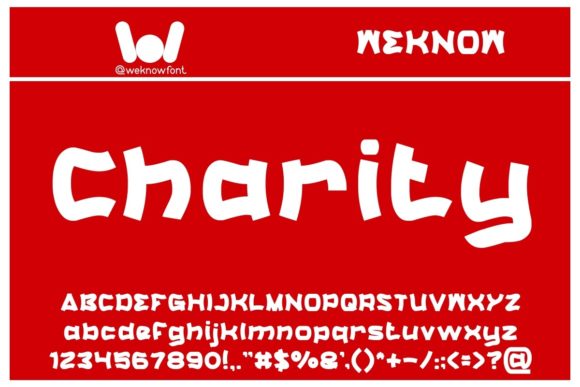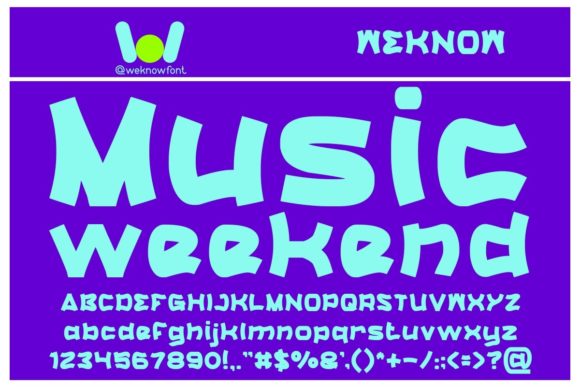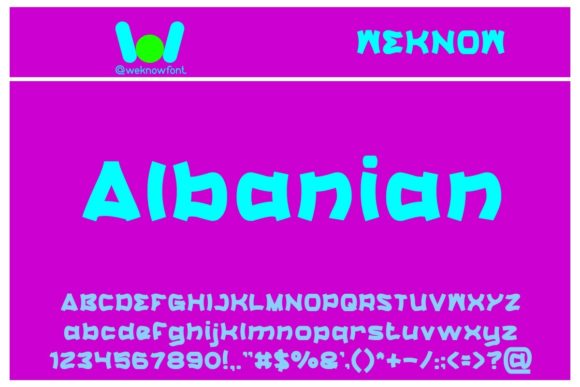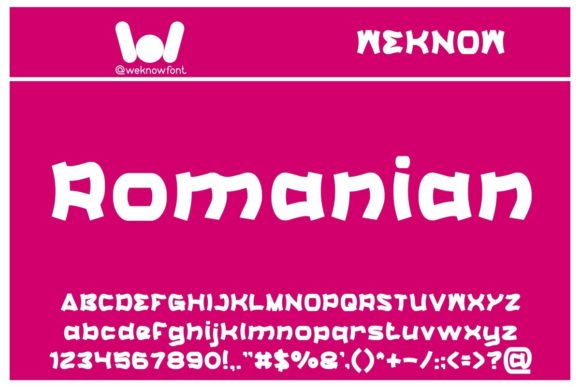
Catalyst Font: The Ultimate Choice for Creative Designs
Are you looking for a font that can add a playful and lovely touch to your designs? Look no further than the Catalyst Font! This cool, chunky lettered, and wavy display font is perfect for cartoon-related designs, children’s games, and any creation that requires a fun and creative vibe.
What is Catalyst Font?
Catalyst Font is a unique and eye-catching font that features chunky, wavy letters that are sure to grab attention. Its playful and carefree design makes it an excellent choice for designers who want to add a touch of whimsy to their work. Whether you’re creating a logo, a poster, or a digital graphic, Catalyst Font is sure to make your design stand out.
Key Features of Catalyst Font
• Chunky and Wavy Letters: The Catalyst Font features thick, chunky letters with a wavy design that gives it a playful and fun feel.
• Perfect for Cartoon-Related Designs: The font’s cartoonish vibe makes it an excellent choice for designers who create content for children’s shows, games, or comics.
• Great for Children’s Games: The font’s playful design makes it perfect for creating fun and engaging games for kids.
• Lovely Touch: The Catalyst Font adds a lovely touch to any design, making it perfect for creating visually appealing graphics.
Why Choose Catalyst Font?
There are many reasons why designers and crafters choose Catalyst Font for their creative projects. Here are a few:
• Unique Design: The Catalyst Font has a unique design that sets it apart from other fonts. Its chunky, wavy letters are sure to grab attention and make your design stand out.
• Versatile: The font is versatile and can be used for a wide range of design projects, from logos and posters to digital graphics and children’s games.
• Easy to Read: Despite its chunky design, the Catalyst Font is easy to read, making it perfect for creating graphics that need to communicate a message.
• Fun and Playful: The font’s playful design makes it perfect for creating fun and engaging graphics that appeal to kids and adults alike.
How to Use Catalyst Font
Using the Catalyst Font is easy! Here are a few tips to get you started:
• Pair it with Other Fonts: The Catalyst Font pairs well with other fonts, so feel free to experiment with different combinations to create a unique look.
• Use it for Headings: The font’s chunky design makes it perfect for headings and titles. Use it to create eye-catching headlines that grab attention.
• Add a Pop of Color: The Catalyst Font looks great with bright, bold colors. Add a pop of color to your design to make it stand out.
In conclusion, the Catalyst Font is an excellent choice for designers and crafters who want to add a playful and lovely touch to their designs. Its unique, chunky, and wavy design makes it perfect for cartoon-related designs, children’s games, and any creation that requires a fun and creative vibe. With its versatility, ease of use, and fun design, the Catalyst Font is sure to become a favorite in your design toolkit.